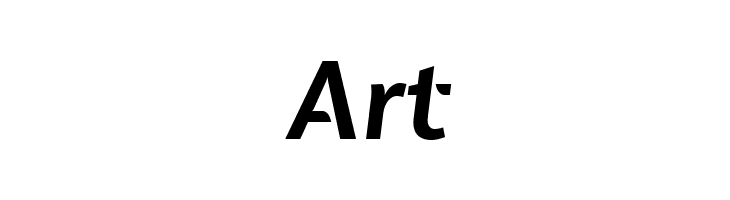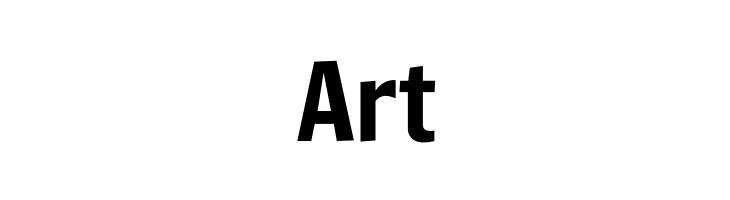
A bold and italic font with a modern, dynamic style.
A bold, italicized font with strong, impactful strokes for modern designs.
A bold, italic, sans-serif font with a modern and dynamic style.
A bold, modern sans-serif font with clean lines and strong presence.
A bold, slanted font with sharp, angular edges and high contrast.
A sleek, modern font with elongated, angular characters and a dynamic appearance.
A modern, geometric font with sharp edges and uniform stroke width.